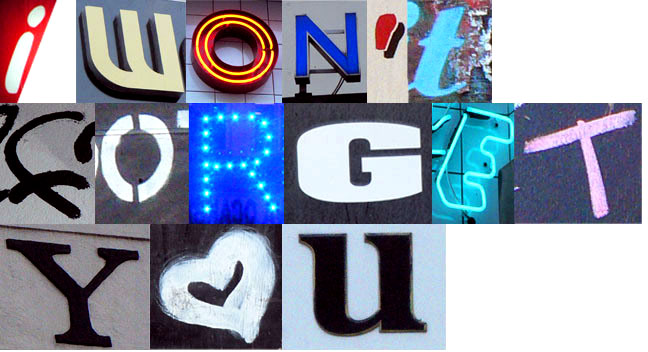
Gallery: Dalston Type Safari
Main image by Pia Hansen who joined us with her group of Danish design students on their trip to London.
Image above by Cathy Hull, read her blog entry about the Type Safari here. Images below by Jess Kelly, read her blog article about the type safari here. Jess also created a series of mood boards showing the different type styles to be found in the area of hand drawn type, sans serif type and serif/slab serif type.
Have you seen these photo opportunity spots around?